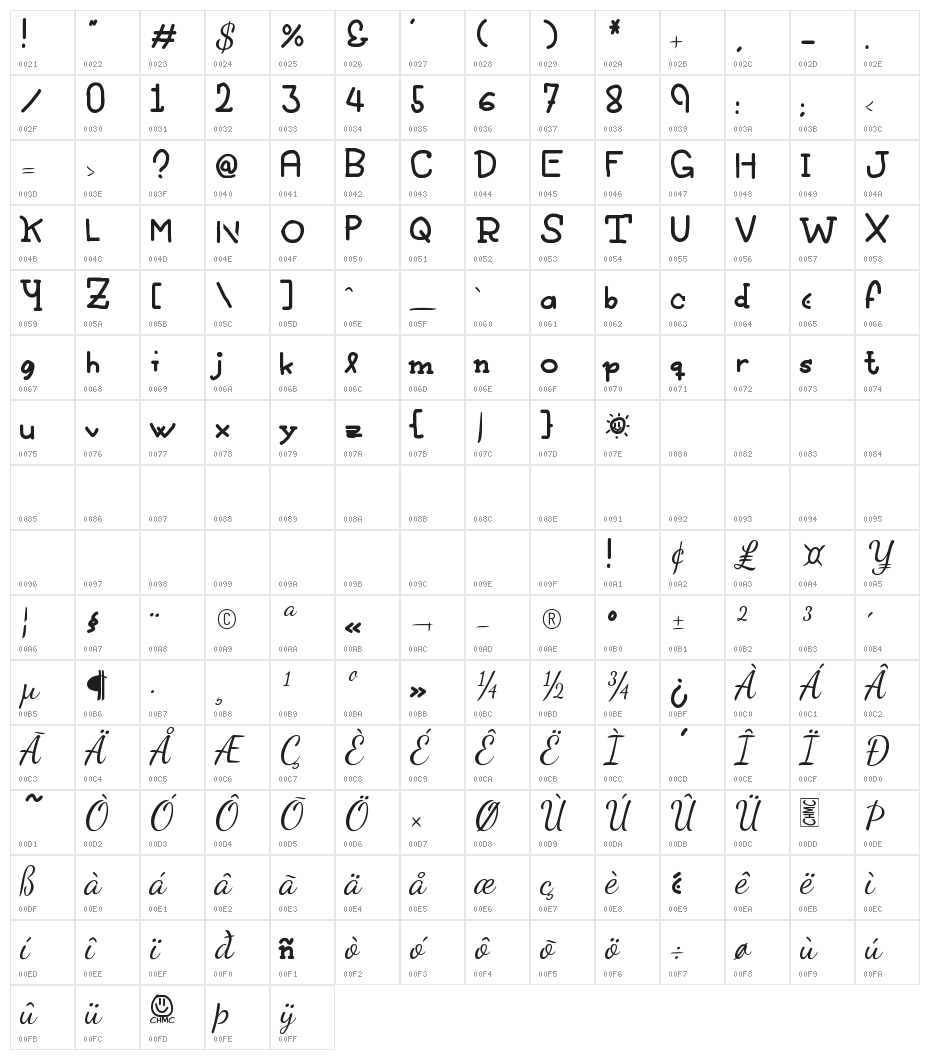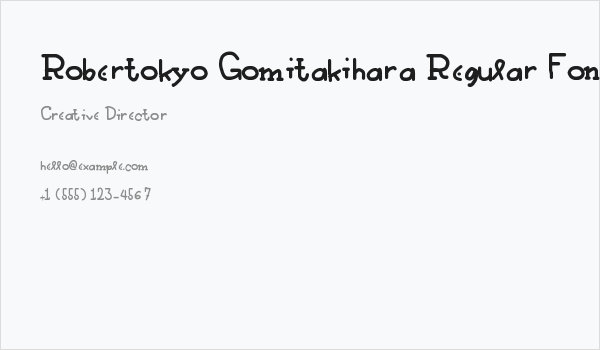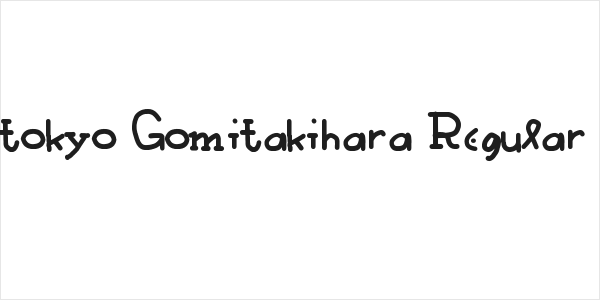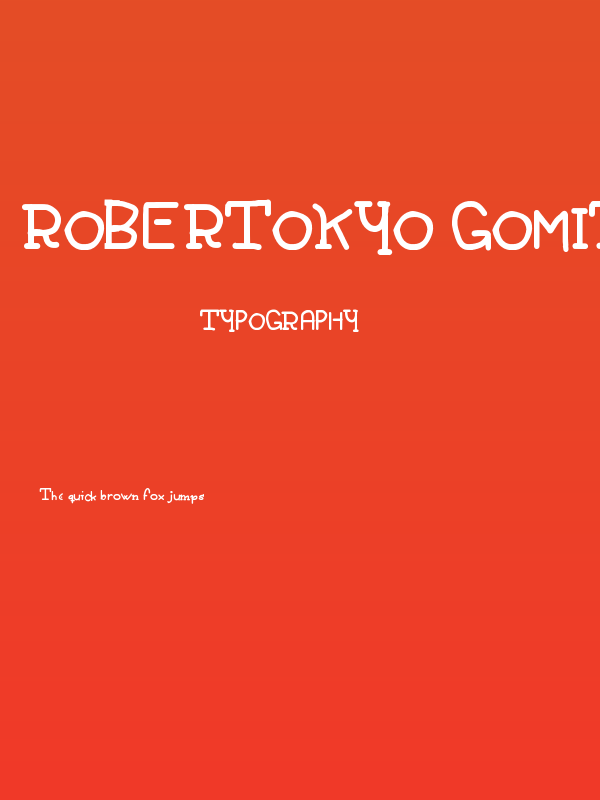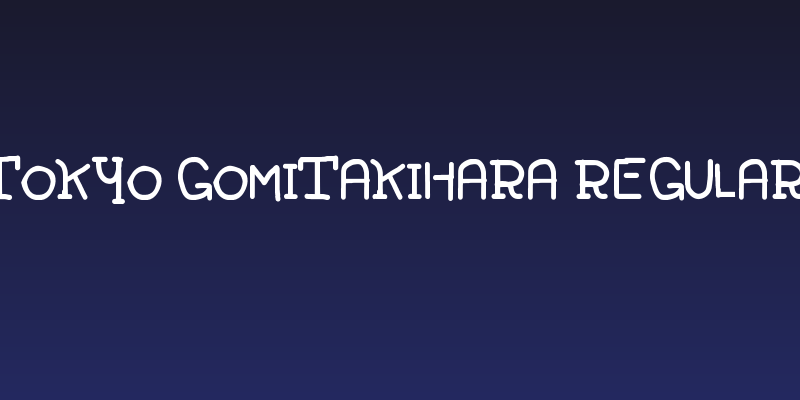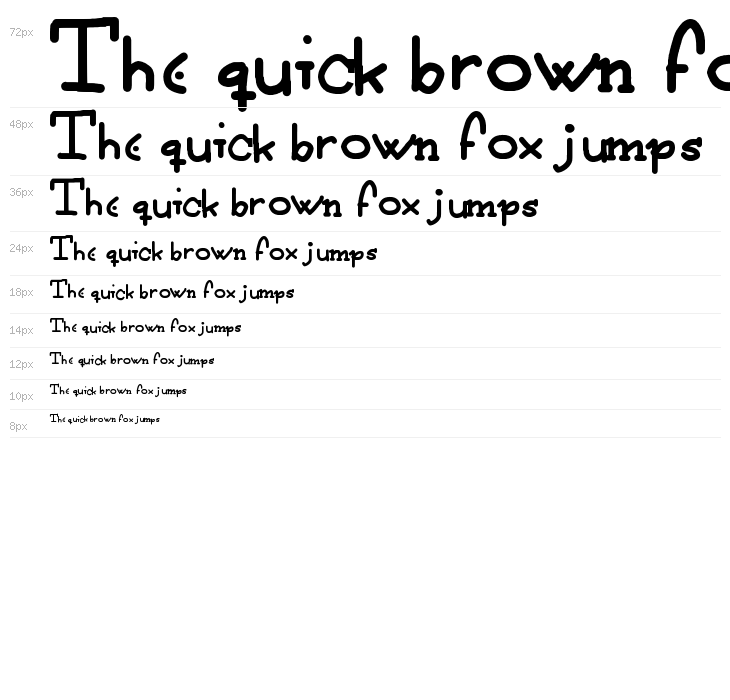
Robertokyo Gomitakihara Regular Fonty Font
Robertokyo Gomitakihara Regular Fonty Description
This font features a playful and informal style with a hand-drawn appearance. The characters are bold and rounded, giving them a friendly and approachable look. The uppercase letters are slightly taller than the lowercase, maintaining a consistent width throughout. The numbers and special characters follow the same playful design, making them easily recognizable and cohesive with the rest of the font. The overall appearance is casual and artistic, suitable for projects that require a personal touch.
Overall StyleCasual
Proposed ProjectsIdeal for children's books, greeting cards, posters, and creative branding projects.